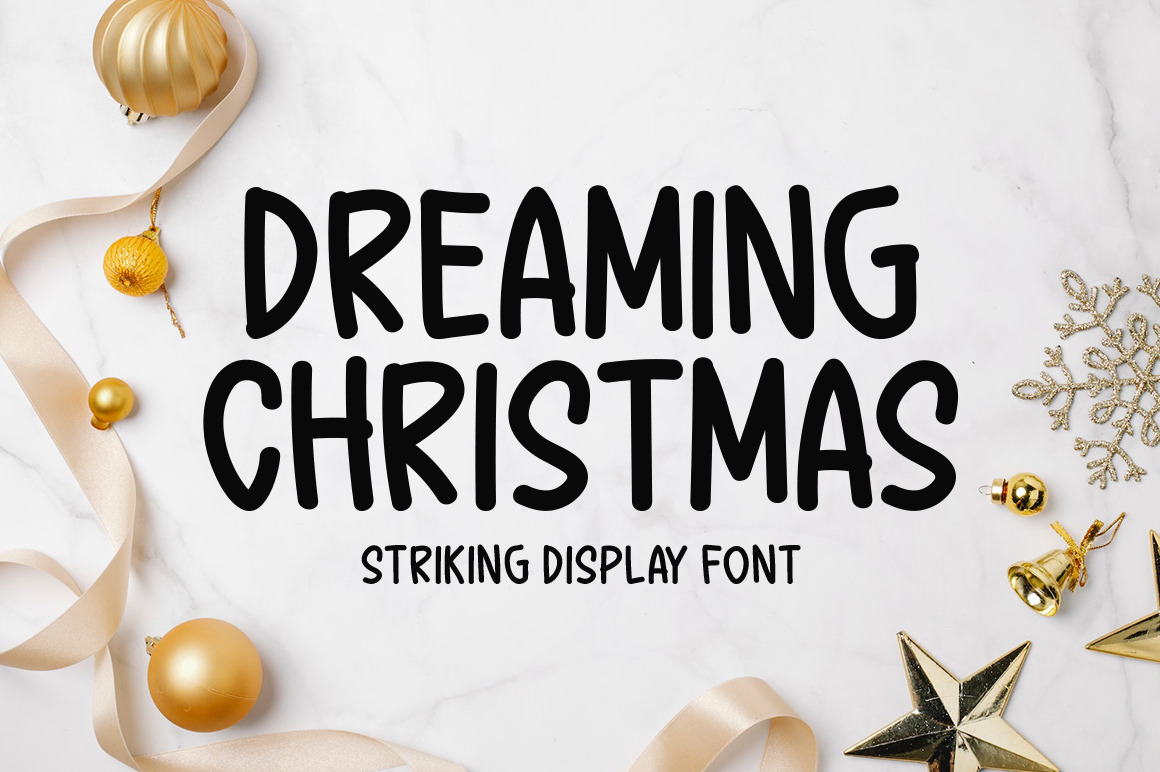
Introducing Dreaming Christmas!
Dreaming Christmas is a simple lettered handwritten font. It can easily be matched to an incredibly large set of projects, so add it to your creative ideas and notice how it makes them stand out!